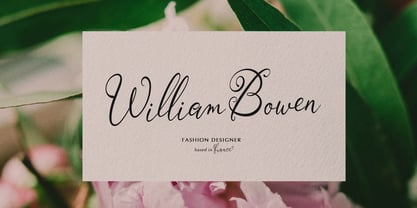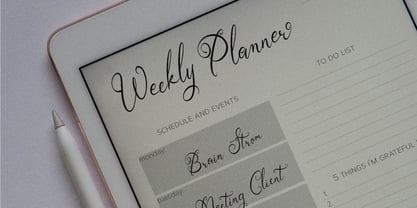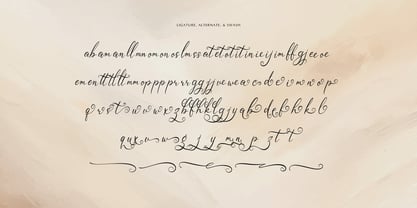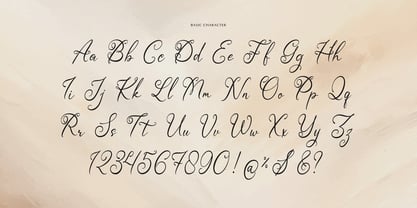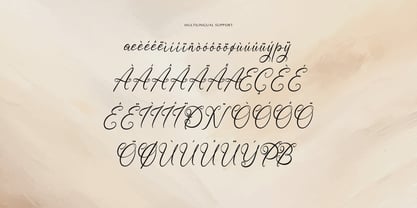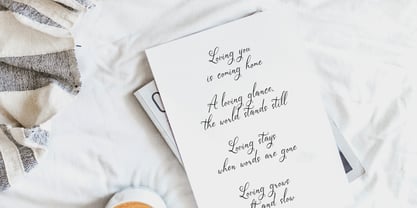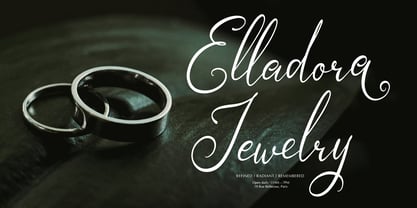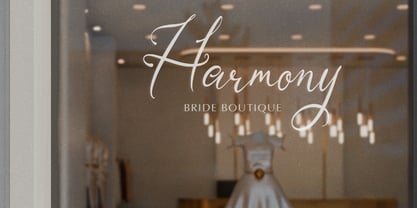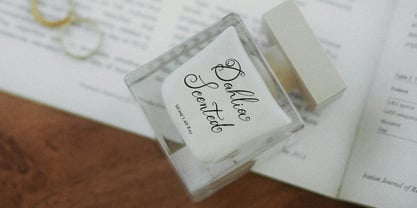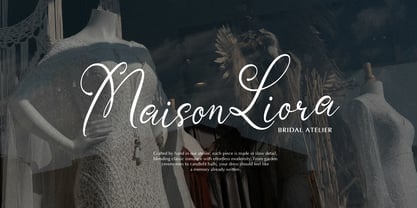
Saphira Amarilli
by Tini Fitriani
The Saphira Amarilli Font Family was designed by and published by Tini Fitriani. Saphira Amarilli contains 1 styles. More about this family
Saphira Amarilli | Beauty Handwritten Font, from Gracetypestudio, suitable for any projects such as: logos, branding projects, homeware designs, product packaging, mugs, quotes, posters, shopping bags, t-shirts, book covers, name card, invitation cards, greeting cards, label, photography, watermark, special events, and all your other lovely projects that need a Beauty Handwritten Font taste.
• Alternate and Ligature
• Fonts include multilingual support